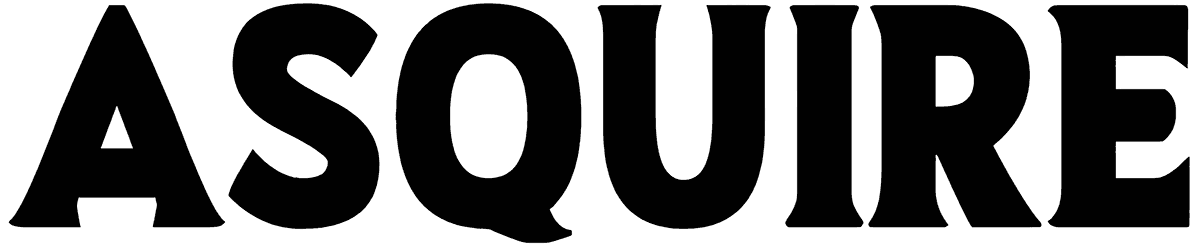
Asquire Font
Great for when you wish to make a strong impact on your audience, Asquire can come in handy in your various projects. Those bold letters of this serif font look better than ever on your hotel signs, advertising billboards for diners and restaurants, toy packaging, and things like that.
There’s only the small issue of lacking any lowercase options in its character map. Nonetheless, the two separate sets of uppercase in this all-caps barbershop font make up for that anyway.